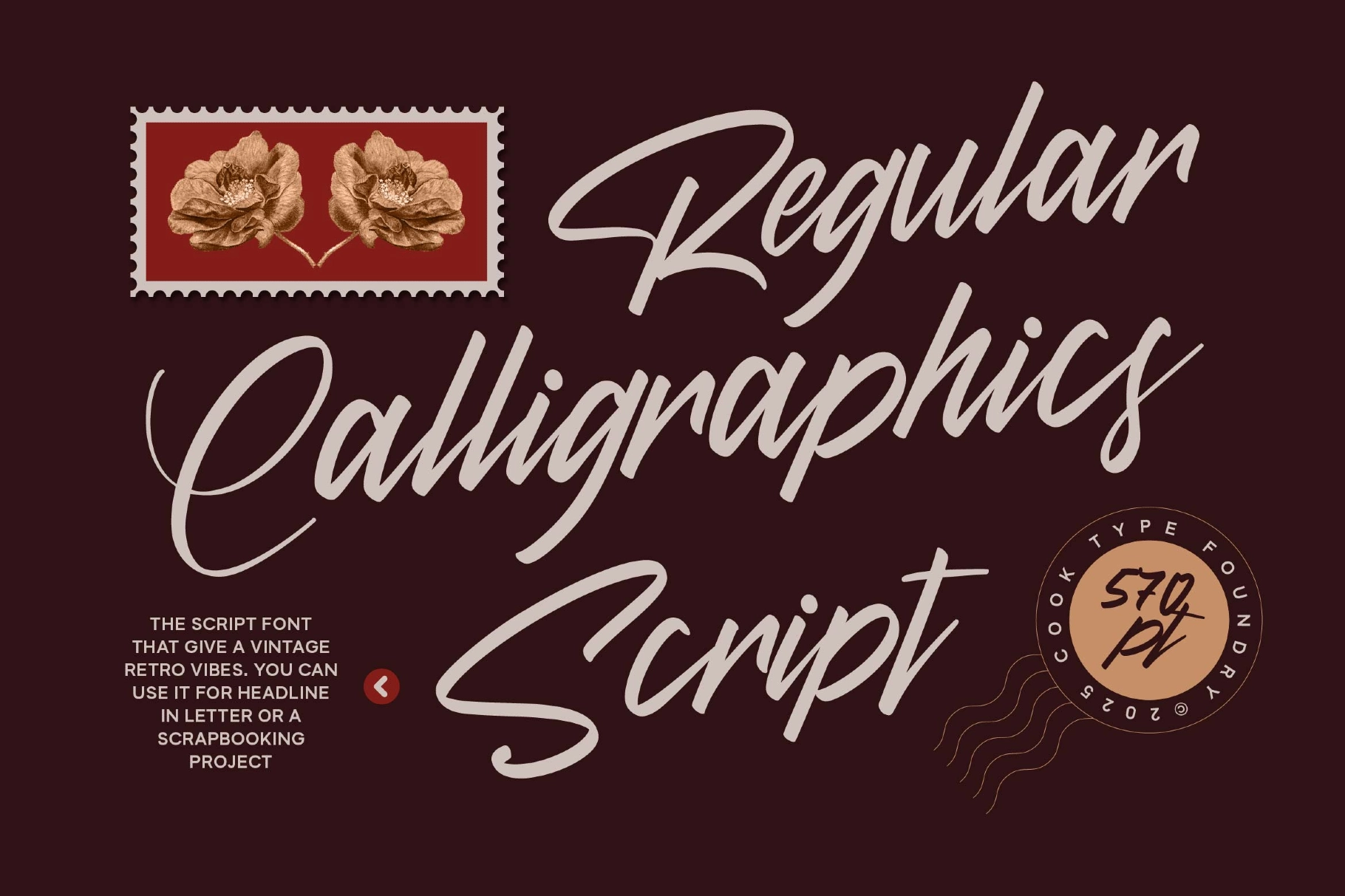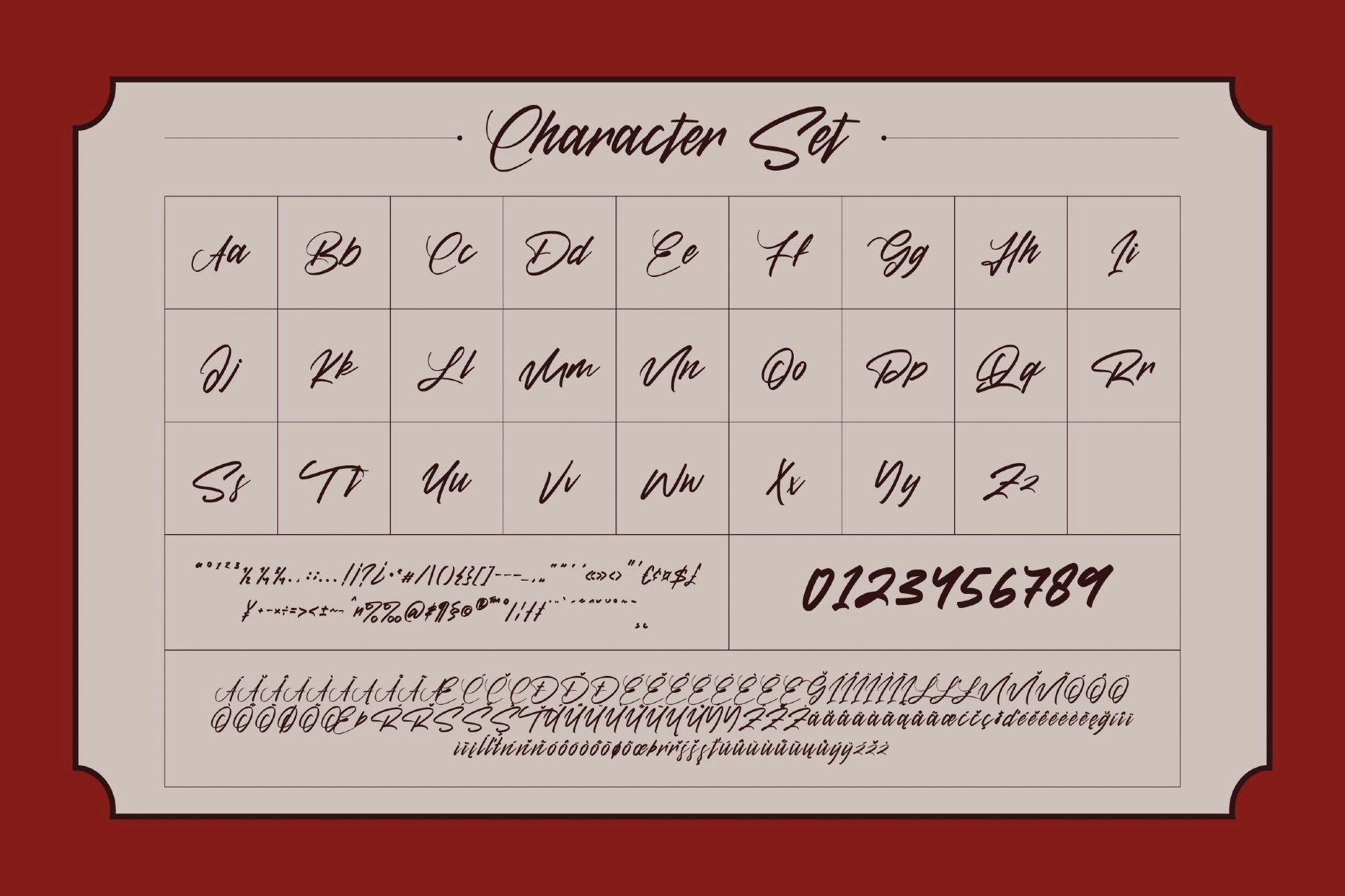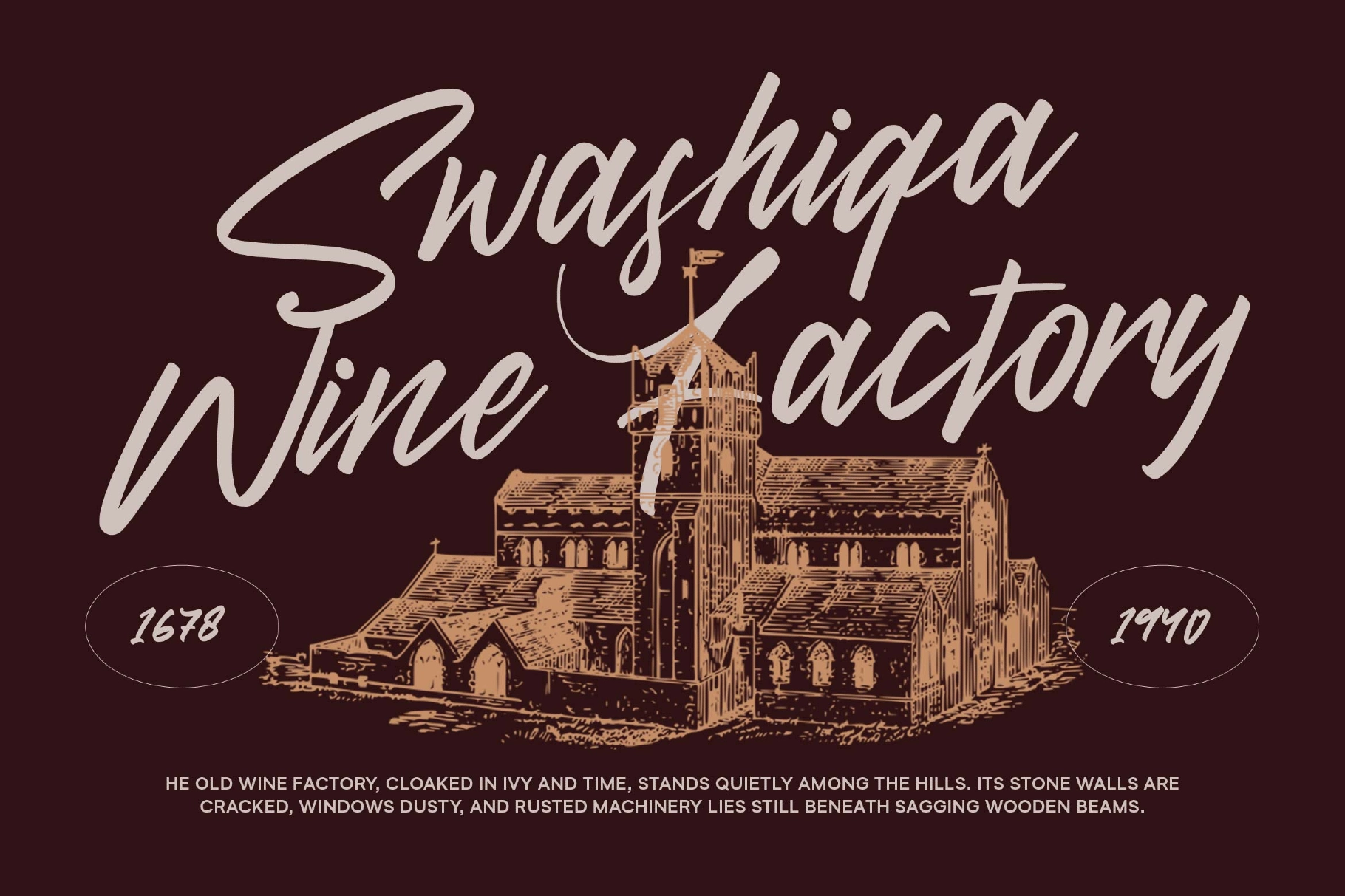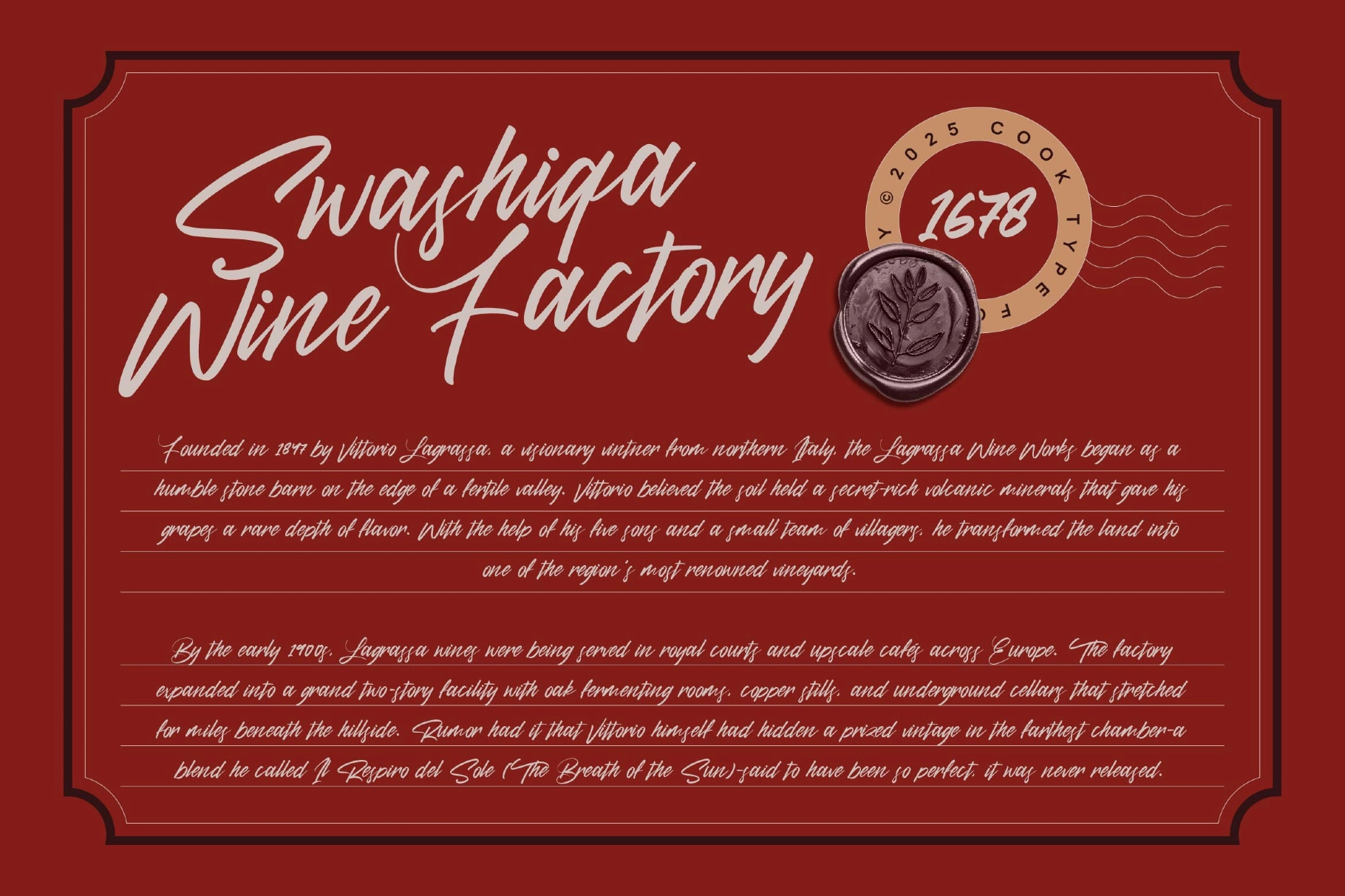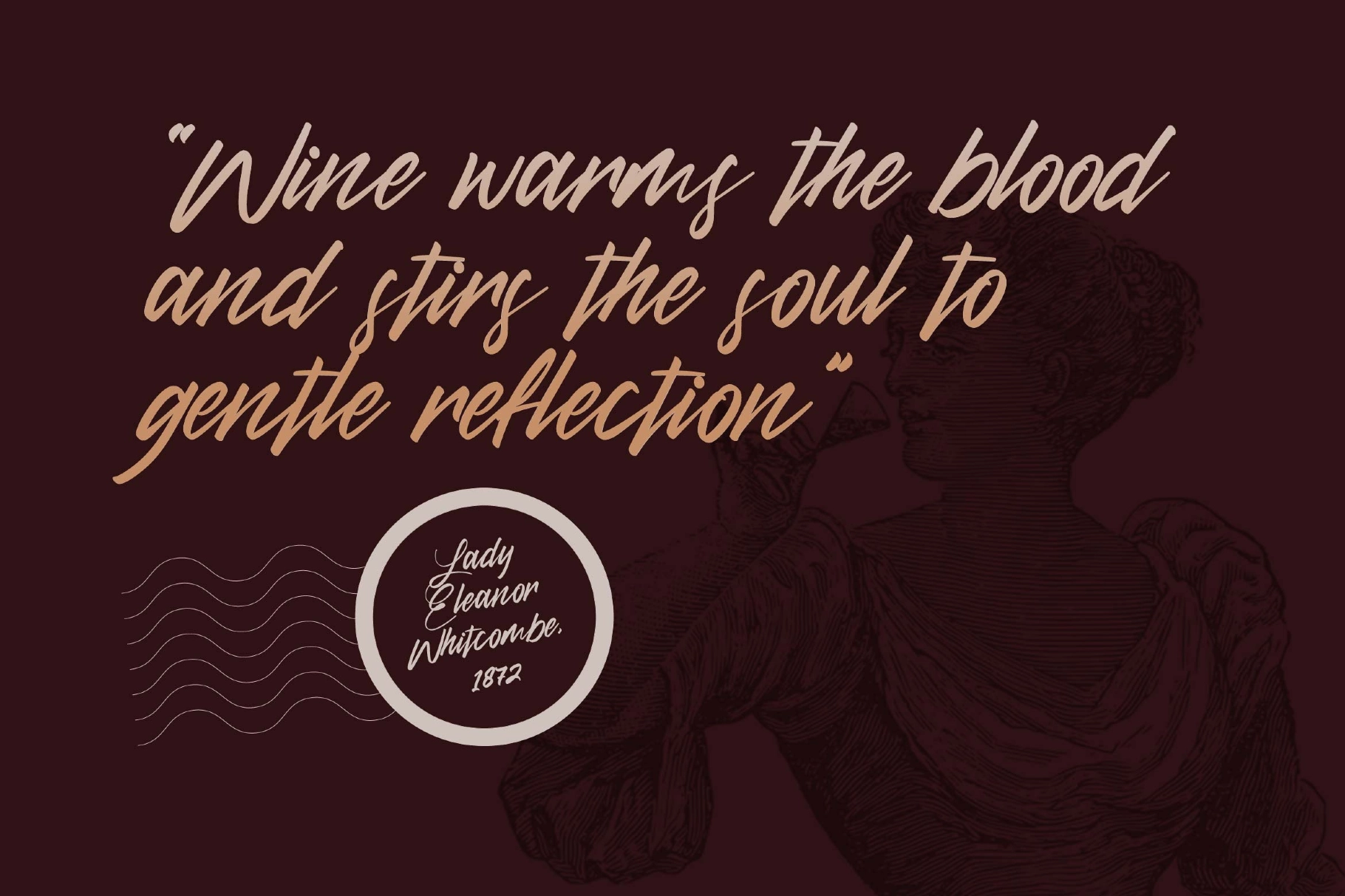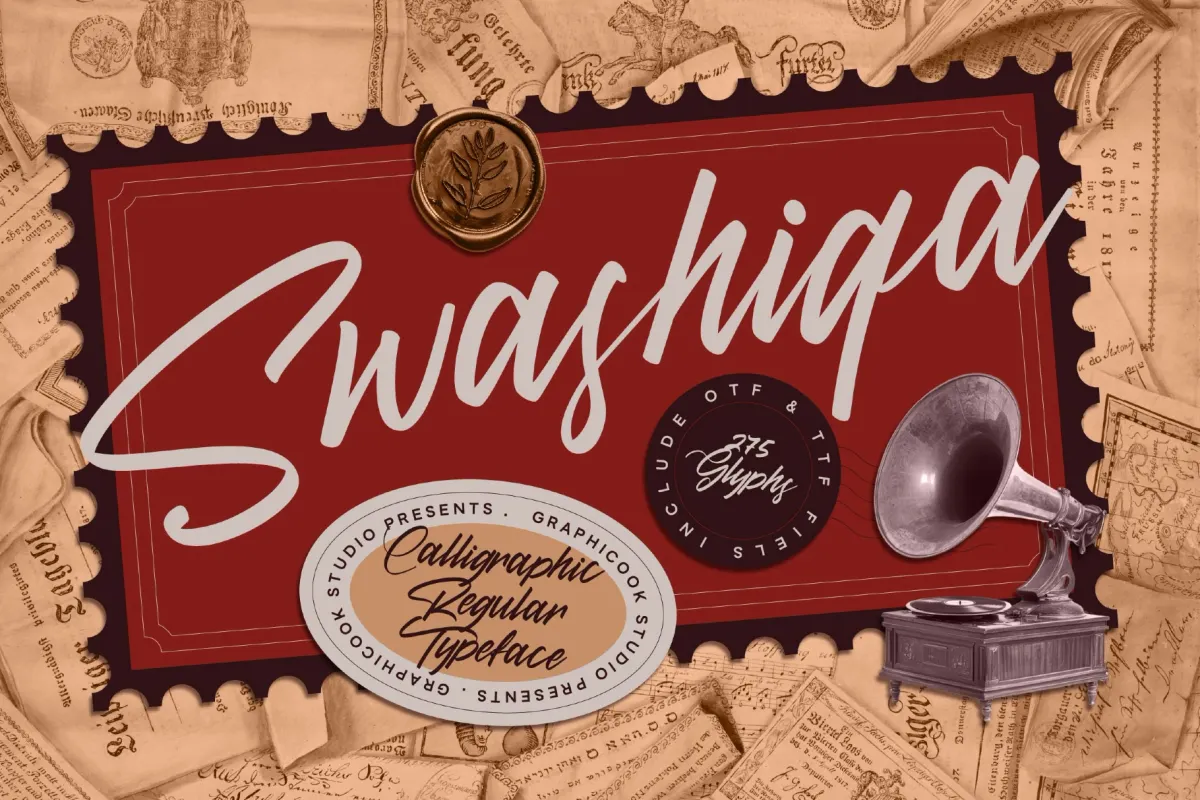
Swashiqa Font
Swashiqa
Swashiqa is a script font with a vintage style, offering an elegant, artistic, and classic touch. Ideal for wedding stationery, luxury branding, certificates, and vintage-themed designs.